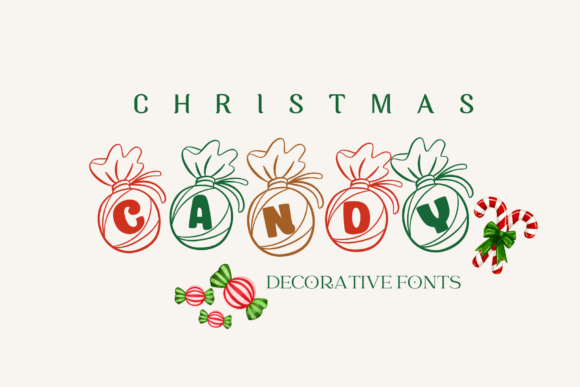
Introducing Christmas Candy Font: The Sweetest Way to Add Holiday Cheer to Your Designs
Are you looking for a fun and festive font to add some holiday magic to your designs? Look no further than Christmas Candy Font! This delightful font is designed to resemble letters made from candy wrappers, bringing a cheerful and playful touch to any text. In this article, we’ll dive into the world of Christmas Candy Font, exploring its features, uses, and benefits for designers and crafters.
What is Christmas Candy Font?
Christmas Candy Font is a decorative font that features letters designed to look like they’re made from candy wrappers. Each letter is carefully crafted to resemble a colorful, sugary treat, complete with swirling patterns and festive details. The result is a font that’s equal parts playful, fun, and festive.
Key Features of Christmas Candy Font
- Unique and playful design: Each letter in Christmas Candy Font is designed to look like a candy wrapper, adding a touch of whimsy to any text.
- Festive and holiday-themed: Perfect for Christmas, Hanukkah, or any other winter holiday, this font is sure to add a splash of color and cheer to your designs.
- High-quality design: With intricate details and smooth lines, Christmas Candy Font is a high-quality font that’s perfect for professional designs.
Uses for Christmas Candy Font
Christmas Candy Font is perfect for a wide range of design projects, including:
- Holiday cards and invitations: Add a touch of festive fun to your holiday cards and invitations with this playful font.
- Social media graphics: Use Christmas Candy Font to create eye-catching social media graphics that are sure to spread holiday cheer.
- Party decorations: Create custom party decorations, such as banners and garlands, with this fun and festive font.
- Craft projects: Use Christmas Candy Font to add a personal touch to your craft projects, such as scrapbooking and DIY gifts.
Christmas Candy Font offers a range of benefits for designers and crafters, including:
- Instant holiday cheer: This font is sure to add a touch of holiday magic to any design project.
- Customizable: Use this font to create custom designs that reflect your personal style and brand.
- Fun and playful: Christmas Candy Font is the perfect way to add a touch of whimsy and fun to your designs.
Tips for Using Christmas Candy Font
Here are a few tips for getting the most out of Christmas Candy Font:
- Use it sparingly: While Christmas Candy Font is fun and festive, it can be overwhelming if used too much. Use it sparingly to add a touch of holiday cheer to your designs.
- Pair it with complementary fonts: Pair Christmas Candy Font with complementary fonts to create a cohesive and visually appealing design.
- Experiment with colors: Don’t be afraid to experiment with different colors and patterns to add an extra touch of festivity to your designs.
Christmas Candy Font is a fun and festive font that’s perfect for adding a touch of holiday cheer to your designs. With its unique and playful design, festive theme, and high-quality details, this font is sure to bring a smile to anyone’s face. Whether you’re a designer or crafter, Christmas Candy Font is a great way to add some sweetness to your projects. So why not give it a try and see how you can use it to spread some holiday cheer?